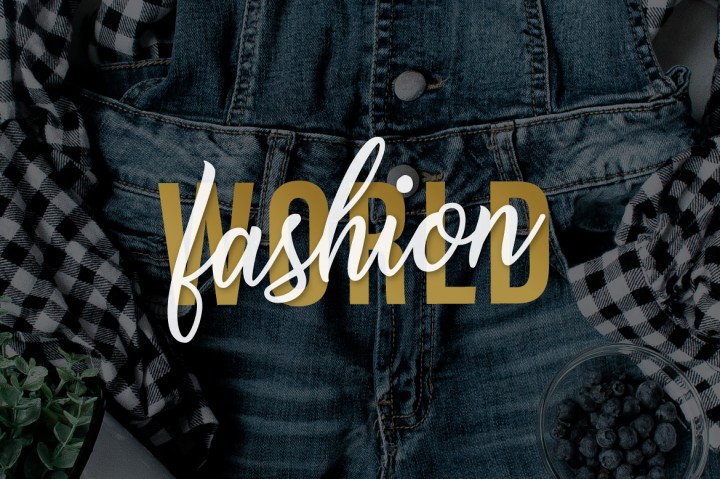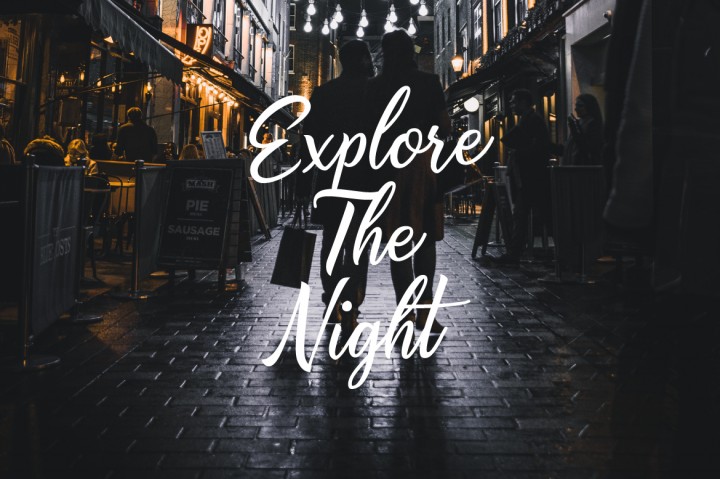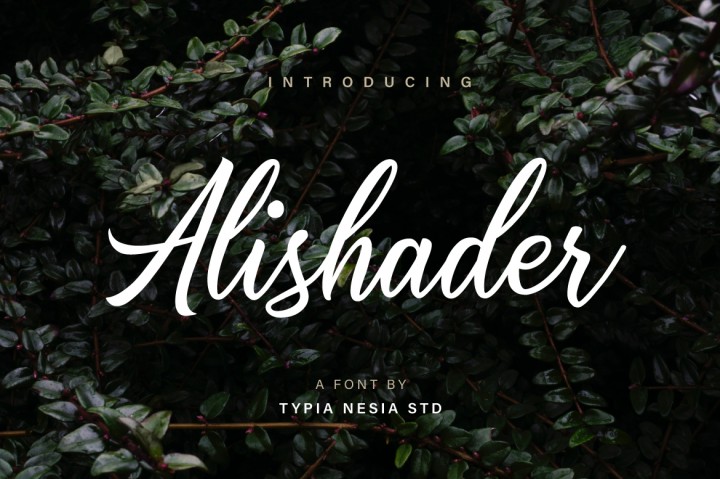
Alishader
Alishader Font
Say hello to Alishader an elegant and modern calligraphy / cursive font.
Alishader is perfect for your up coming projects. Such as modern invitation design, branding, stationery design, blog design, modern advertising design, card invitation, art quote, home decor, book/cover title, special events ( wedding, birthday, etc ), and any modern elegant calligraphy needs.